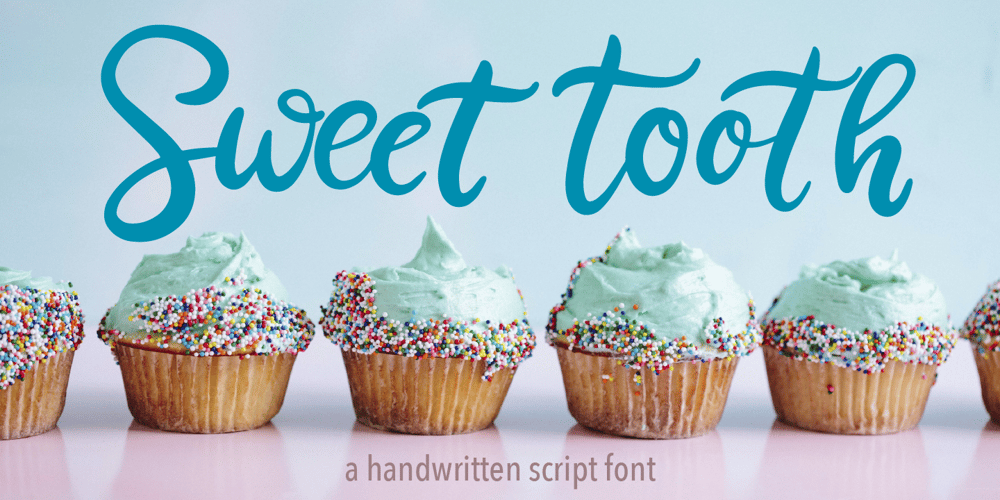
Sweet Tooth
Sweet Tooth font
Sweet Tooth Font Family was designed by Elena Almazova-Dolzhenko and published by Almazova Dolzhenko. Sweet Tooth contains 1 styles and family package options. I am happy to introduce my new handwritten script font Sweet Tooth. This font is bouncy and cheerful. It will look perfect for branding, package and menu design.Hand-drawn script font Sweet Tooth contains 2 sets of uppercase and 3 sets of lowercase letters and a big set of ligatures helping to imitate handwriting. Multilingual support is included.No special software is required to use Sweet Tooth font, it is PUA encoded. For designers who do have OpenType capable software: you can access alternates by turning on ‘Ligatures’ buttons on in Photoshop’s Character panel or via any software with a glyphs panel, e.g. Adobe Illustrator, Photoshop CC, Inkscape.Features: 2 sets of Uppercase 3 sets of Lowercase Numerals & Punctuation Ligatures Multilingual support I hope you love it and if you have any question, feel free to contact me!Thanks!Lena (instagram @almaz_dolzhe)